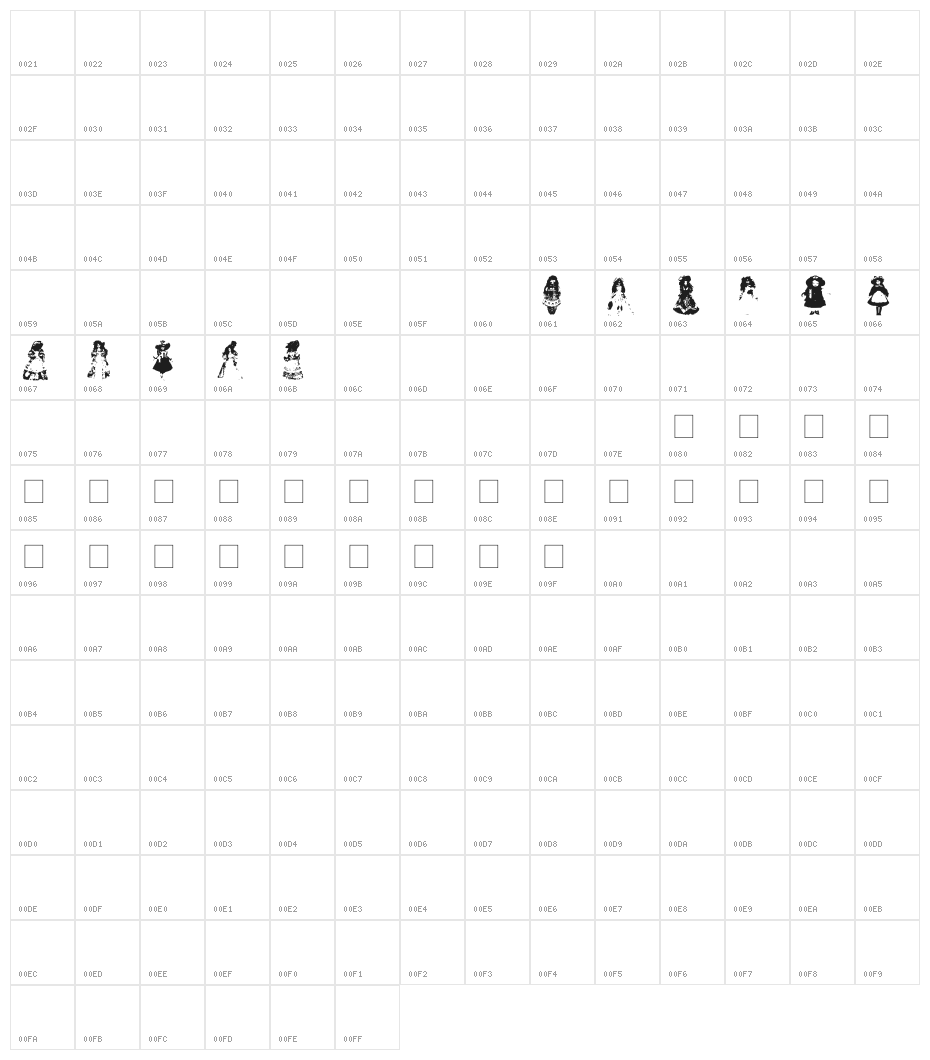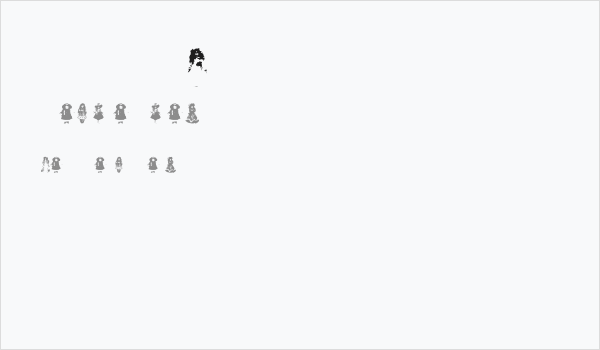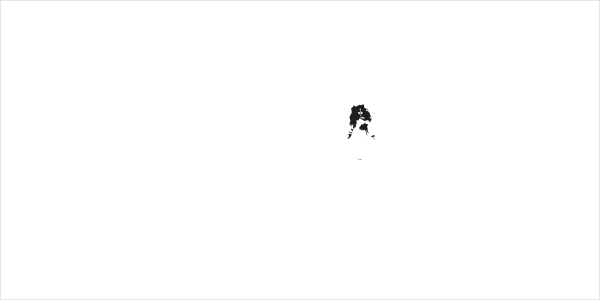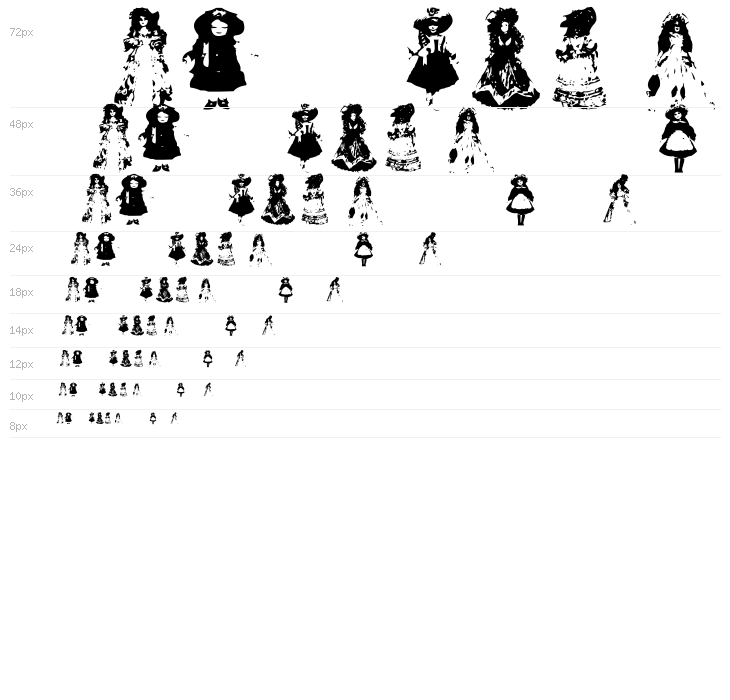
AEZ toy dolls Font
AEZ toy dolls Description
A highly decorative and playful display style featuring silhouettes of vintage dolls as characters, each letter or symbol represented by a unique doll figure with intricate dress details and varying poses.
| Overall Style | Decorative, Playful, Whimsical |
| Use Case | Logos, Headlines, Posters, Themed graphics |
| Proposed Projects | Children's book covers, toy packaging, playful event invitations, themed posters. |